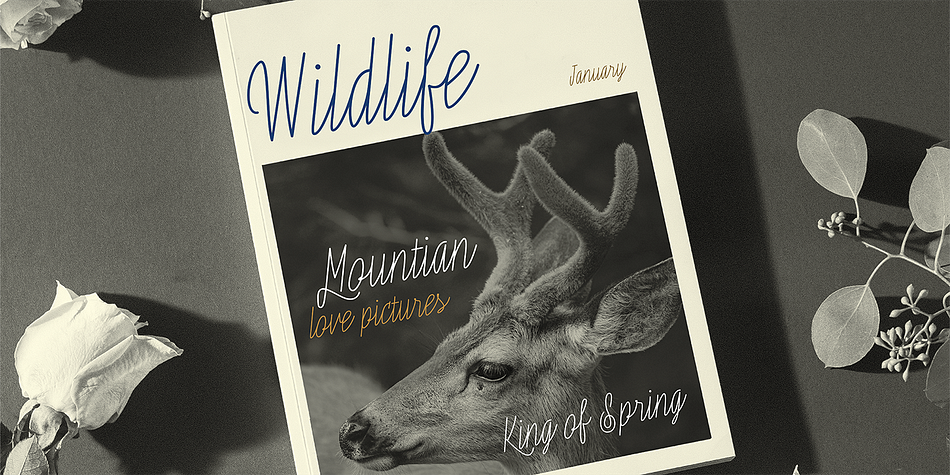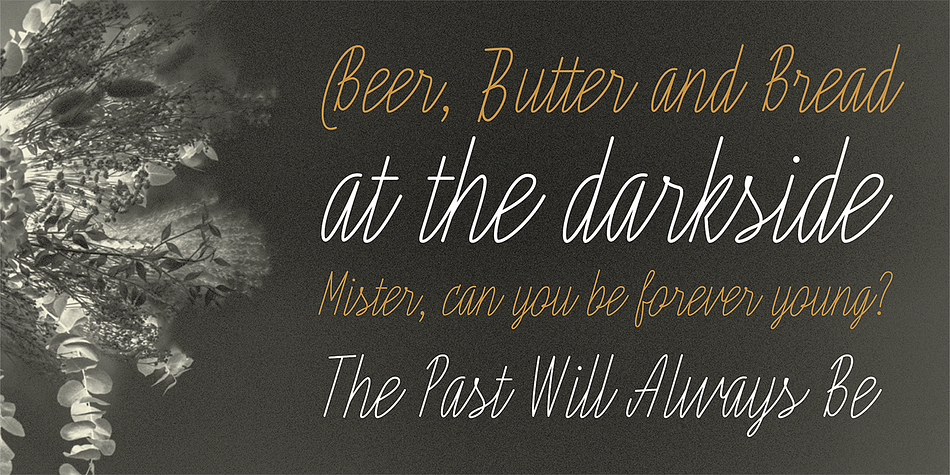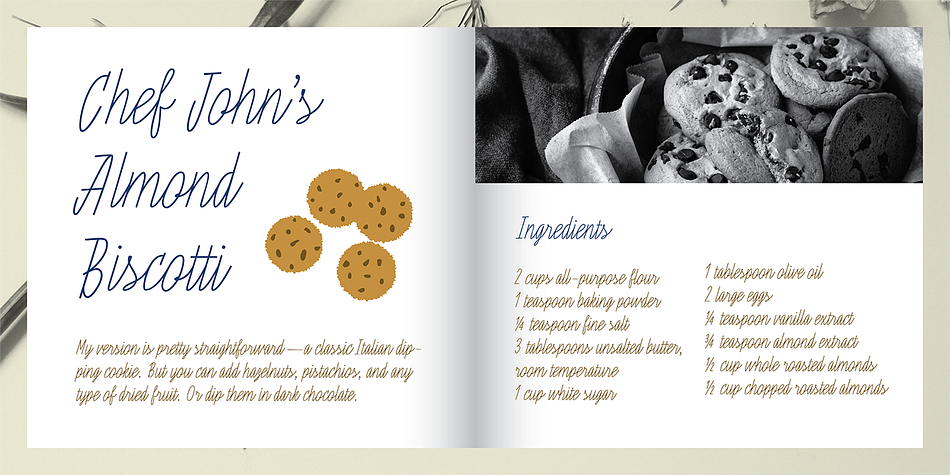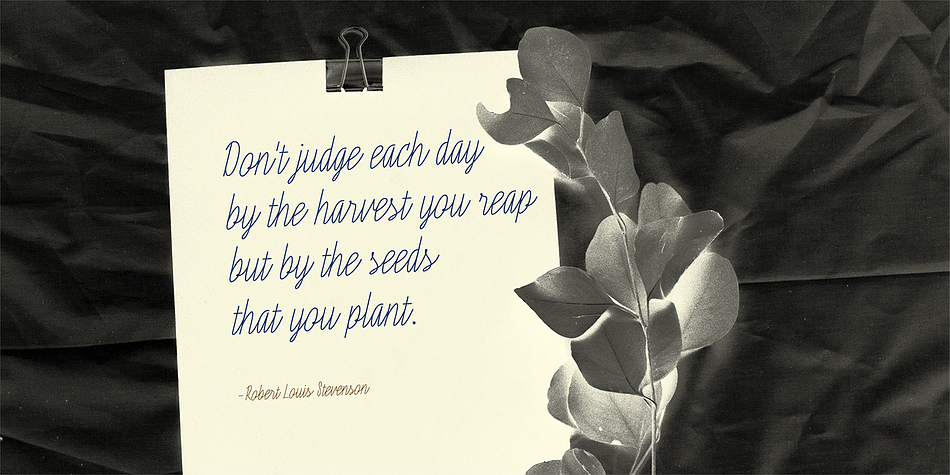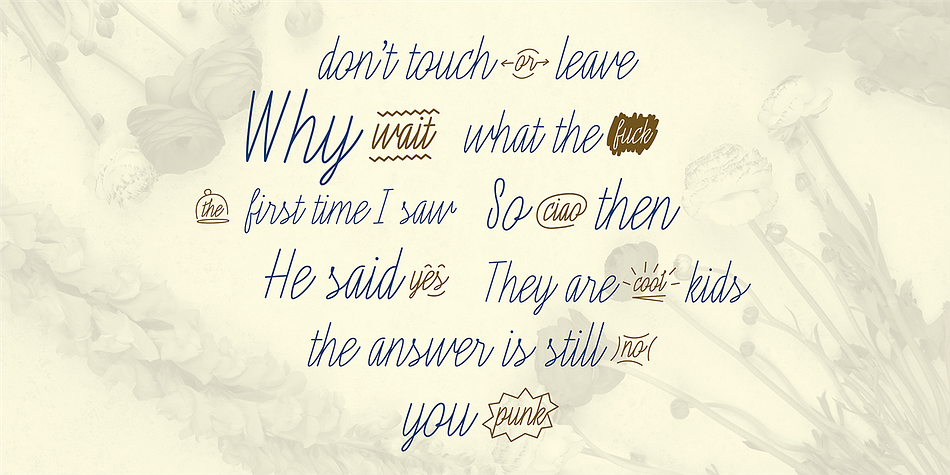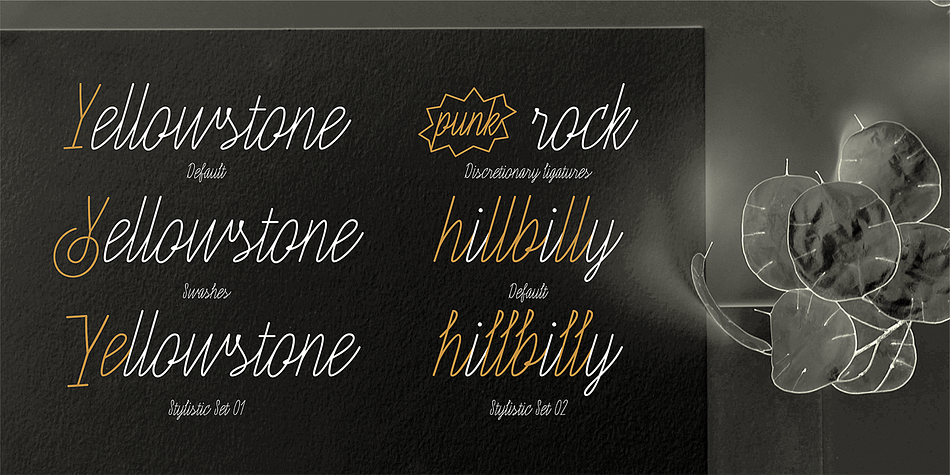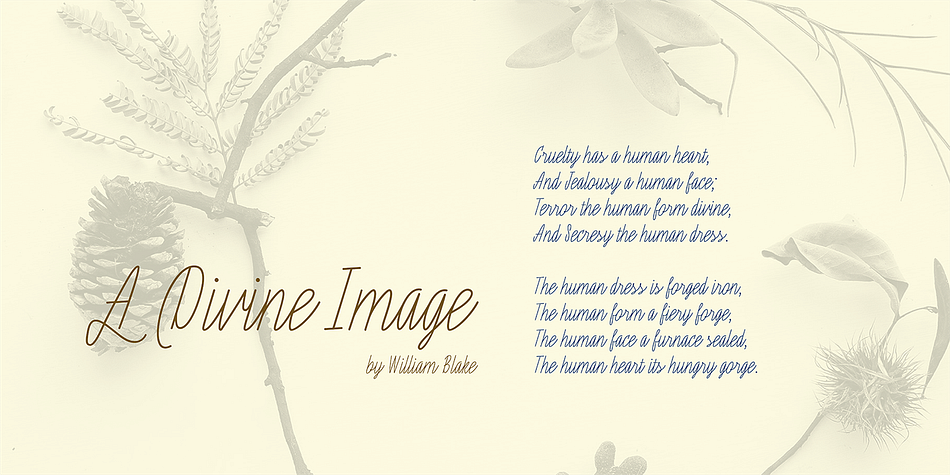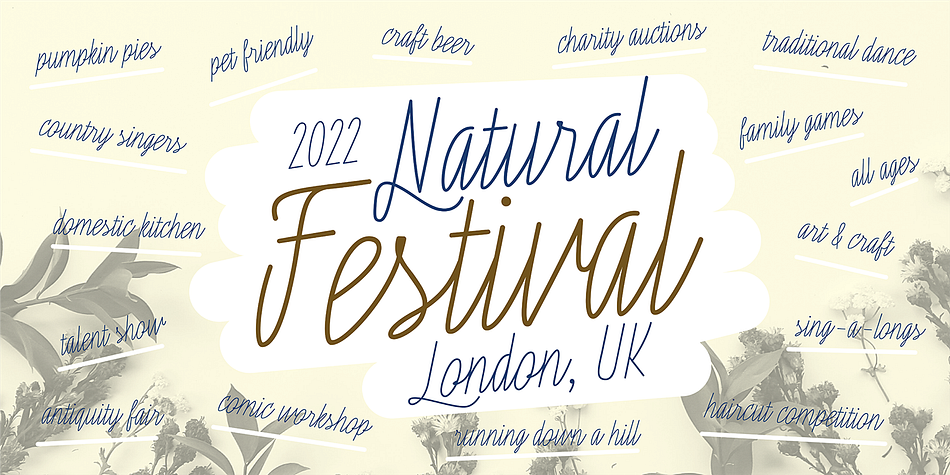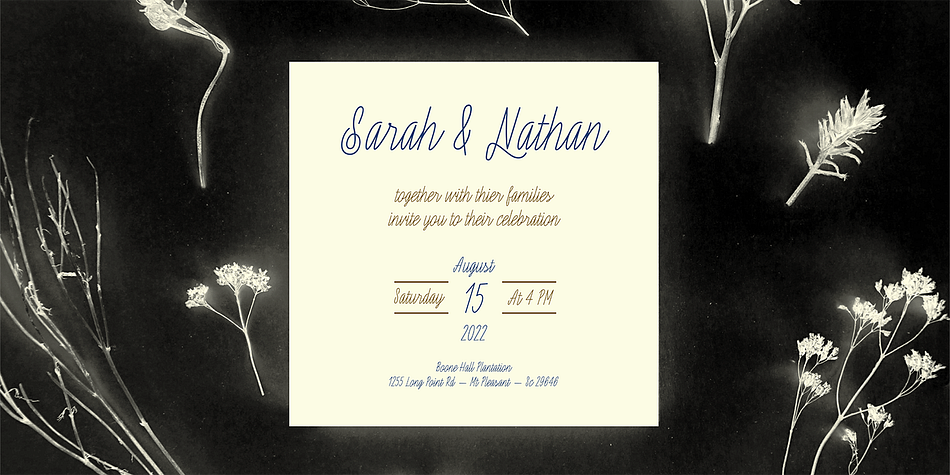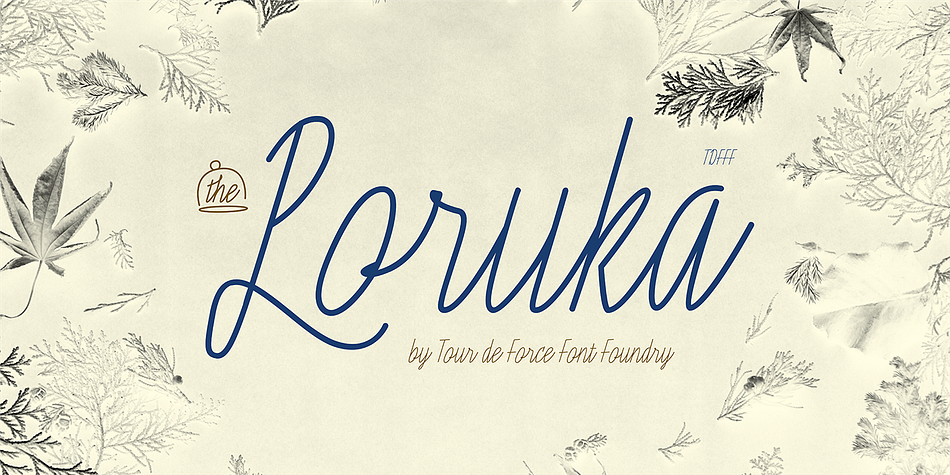
Poruka
Designed by Dusan Jelesijevic, Poruka is a script font family published by Tour de Force Font Foundry.
Poruka is slanted script typeface with connected letters with gently condensed look. Letters are designed as monoline forms with decent dose of elegancy and stylistic uniformity. Poruka is imagined mainly as typeface for shorter texts or headlines, where text needs to stand out from other elements of content. It can be used successfully both as webfont and on printed materials – all kinds of invitations, labels, packages, posters and editorial use.
Poruka comes with two Stylistic Sets – 01 which activates uppercase letters with full font height (from the top of ascender to the bottom of descender) and 02 – which activates handwritten forms on “b”, “d”, “h” and “l” letters. Also, Poruka is equipped with Swashes and Discretionary Ligatures which doesn’t really represent classical pack of expected ligatures, but more as graphical version of a couple of words like “yes”, “no”, “wait”, “ciao” and a few more.